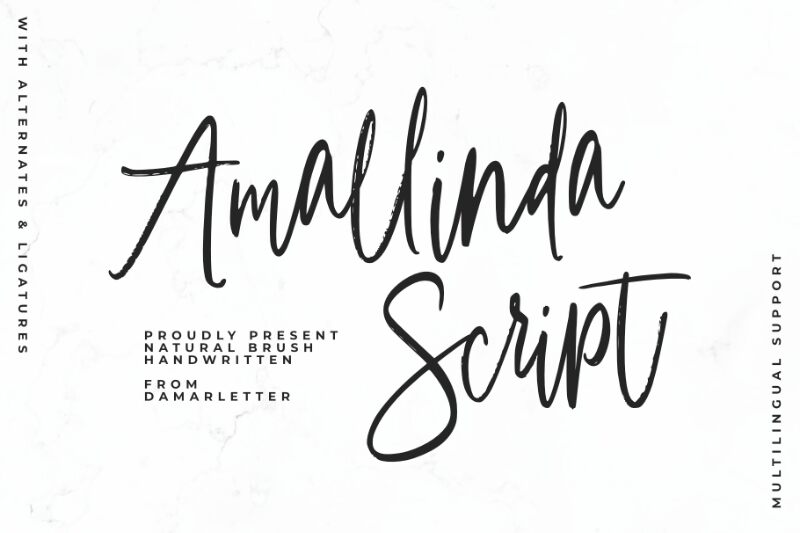
Amallinda Script
Amallinda Script font, designed by Ardian Nuvianto of Damarletter, embodies the enchanting qualities of handwritten elegance. This font captivates with its flowing curves and inviting warmth, making each letter dance gracefully across the page. The design exudes a personal touch, transforming ordinary text into an exquisite expression of artistry.
With its bold and playful strokes complemented by delicate loops, Amallinda Script stands out as both charming and sophisticated. Its fluid style evokes a sense of creativity, ideal for projects that seek to convey intimacy and flair.
Perfect for wedding invitations, branding materials, or artful quotes, this unique font breathes life into any design context. Whether enhancing a romantic announcement or adding character to modern branding, Amallinda Script offers endless possibilities for imaginative expression.